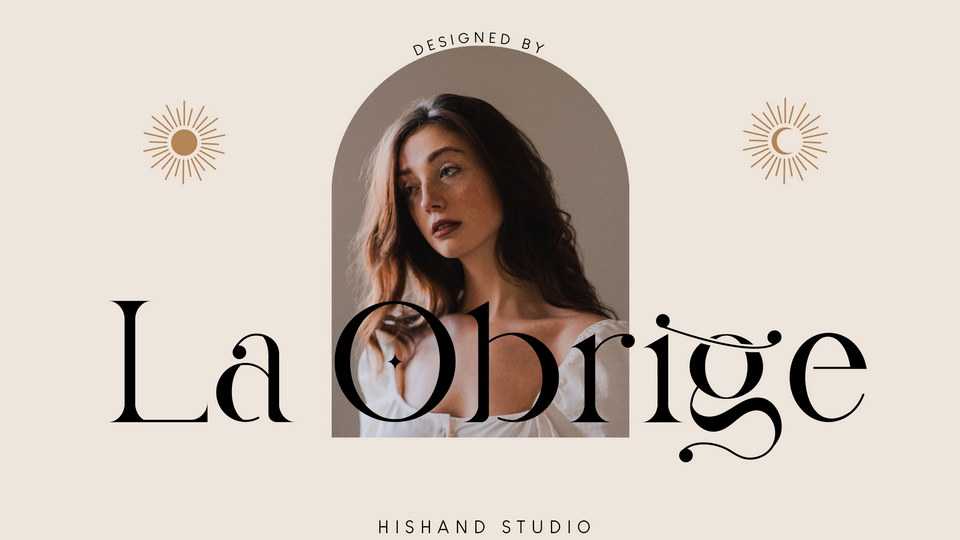
Download La Obrige font, a serif typeface that inspired by the beauty, aesthetic, elegance and Paris. La Obrige is really good for wedding, logotype, advertisement, social media posts, product packaging, and more.